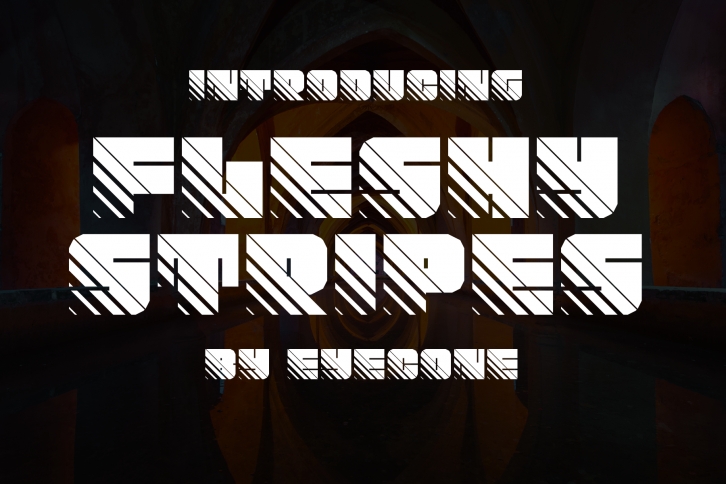
Fleshy is a great font that was designed by EyeCone. Imagine the amount of combinations you can create using this font! The archive is 17.60 MB and it was released on January 6, 2019. Fleshy looks beautiful on wedding invitations, greeting cards, logos, posters, labels, t-shirt designs, logos, business cards and is perfect for use in ink or watercolor works, fashion, magazines, packaging and food menus, children's books and more!